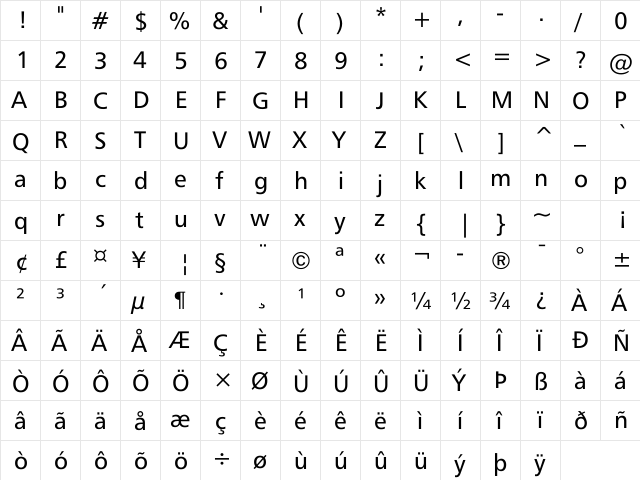
Humana 777 Regular
Design Context for Humana 777 Typeface
Humana 777 is a composed and adaptable typeface that performs quietly and consistently across a wide range of design contexts.